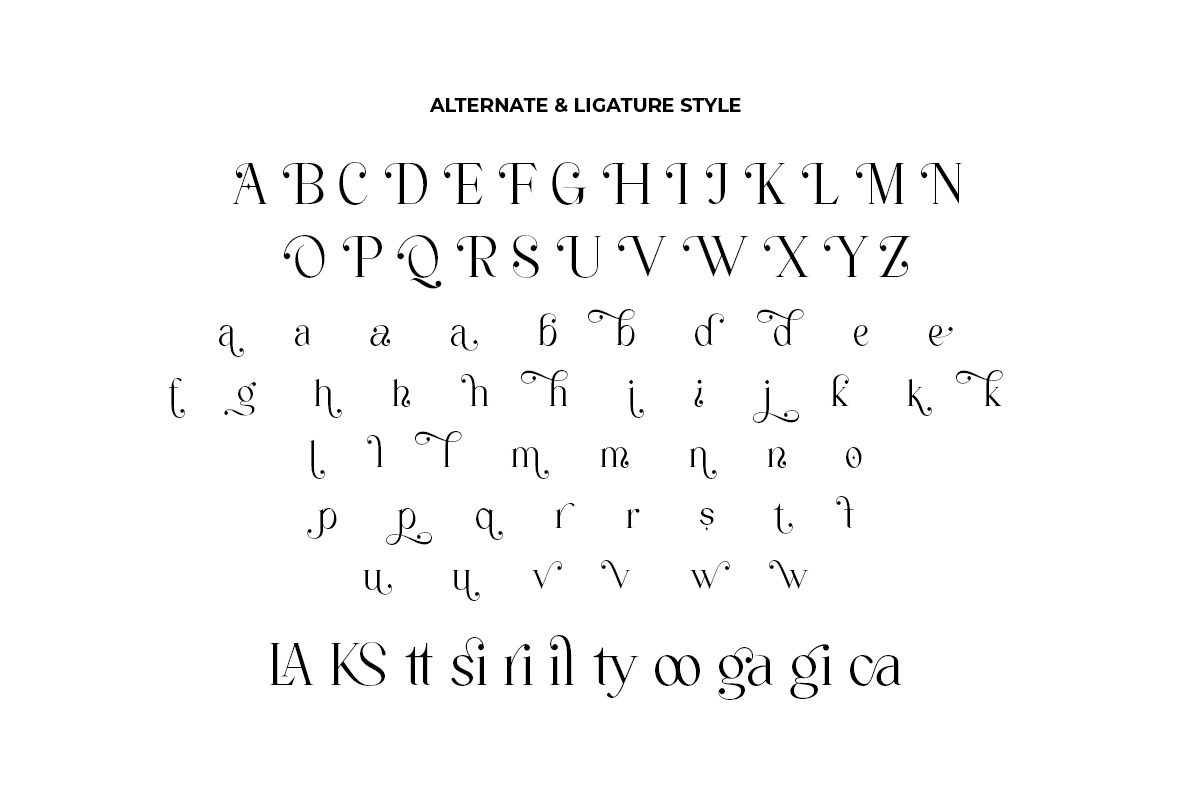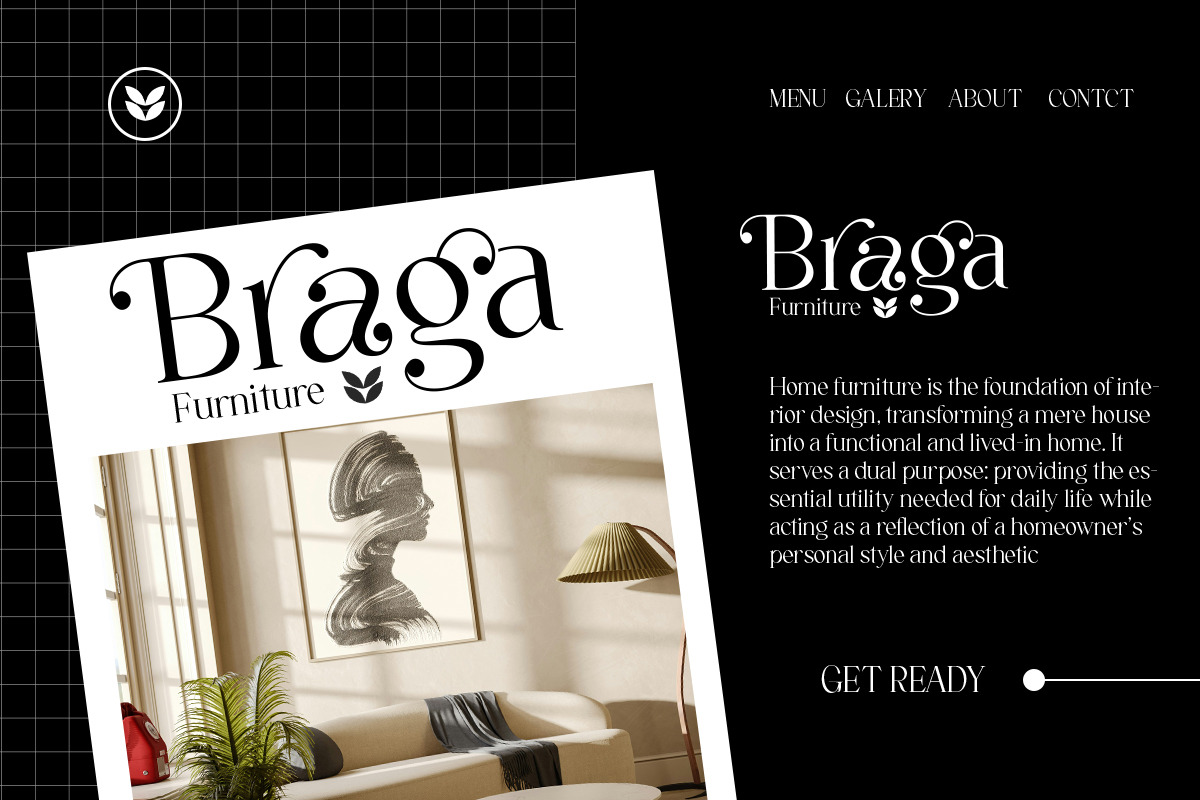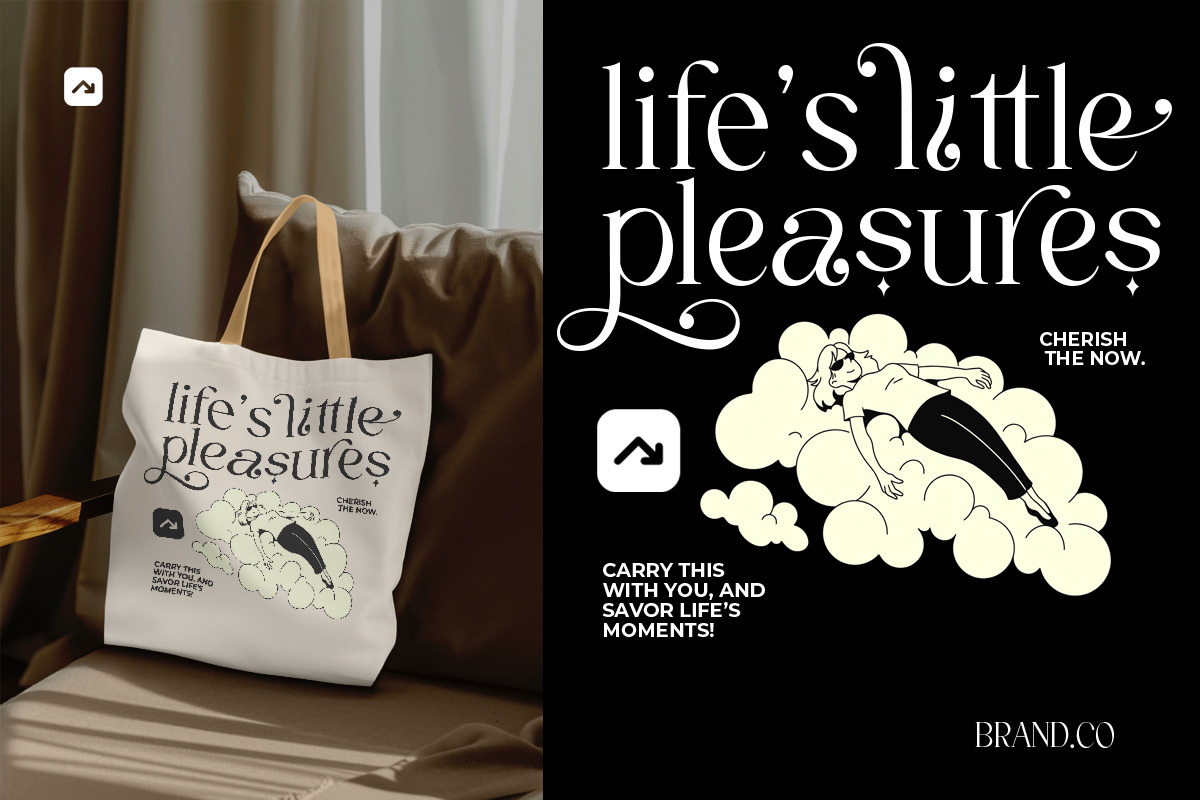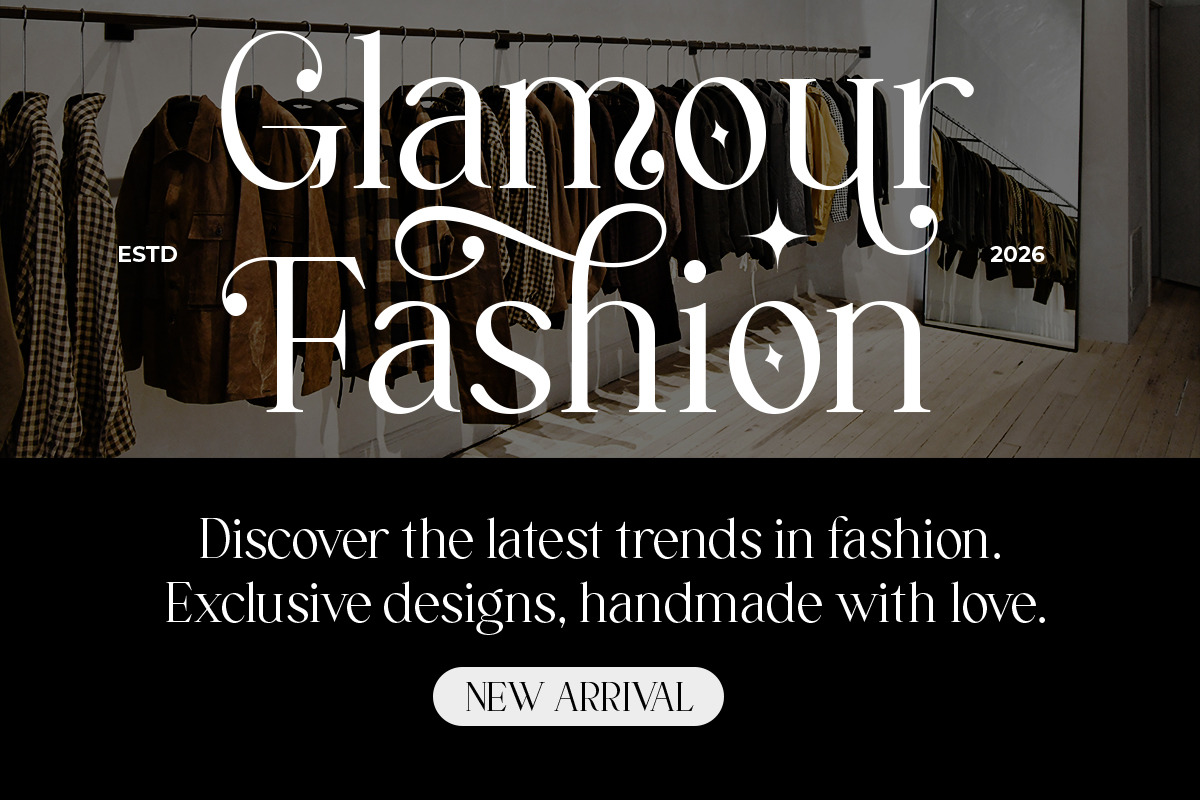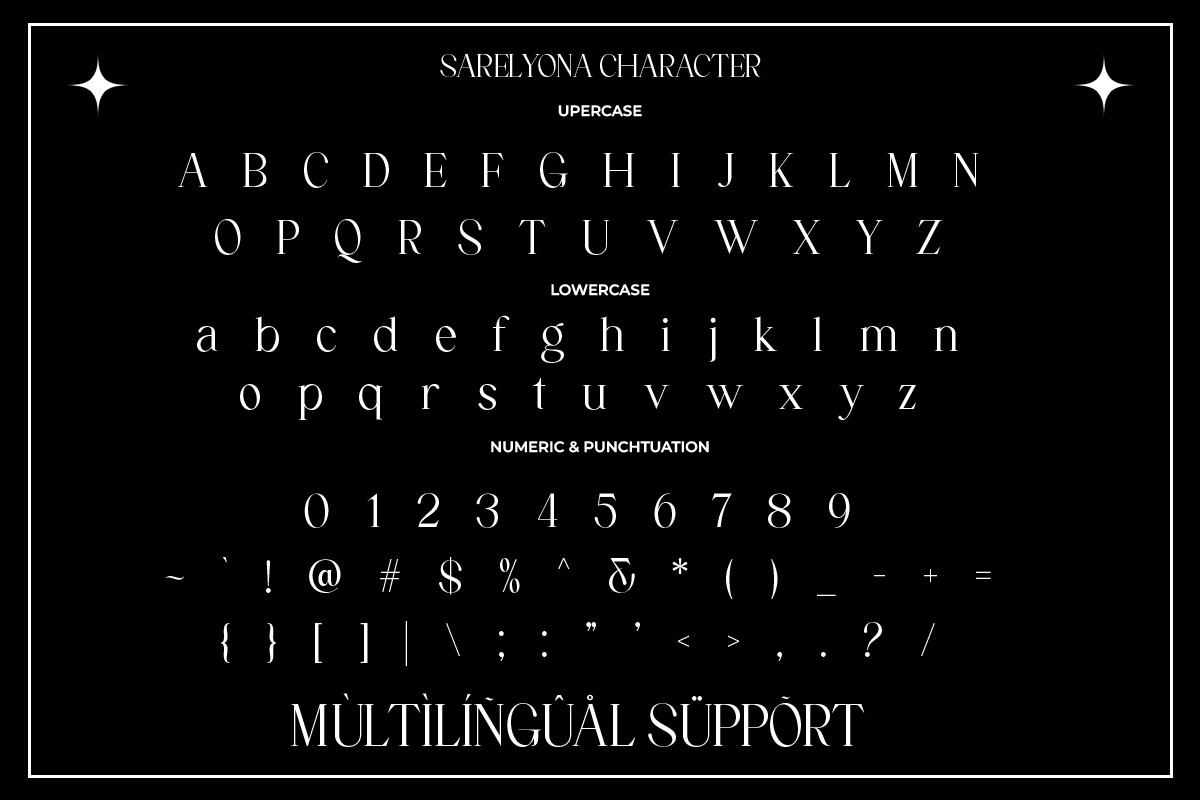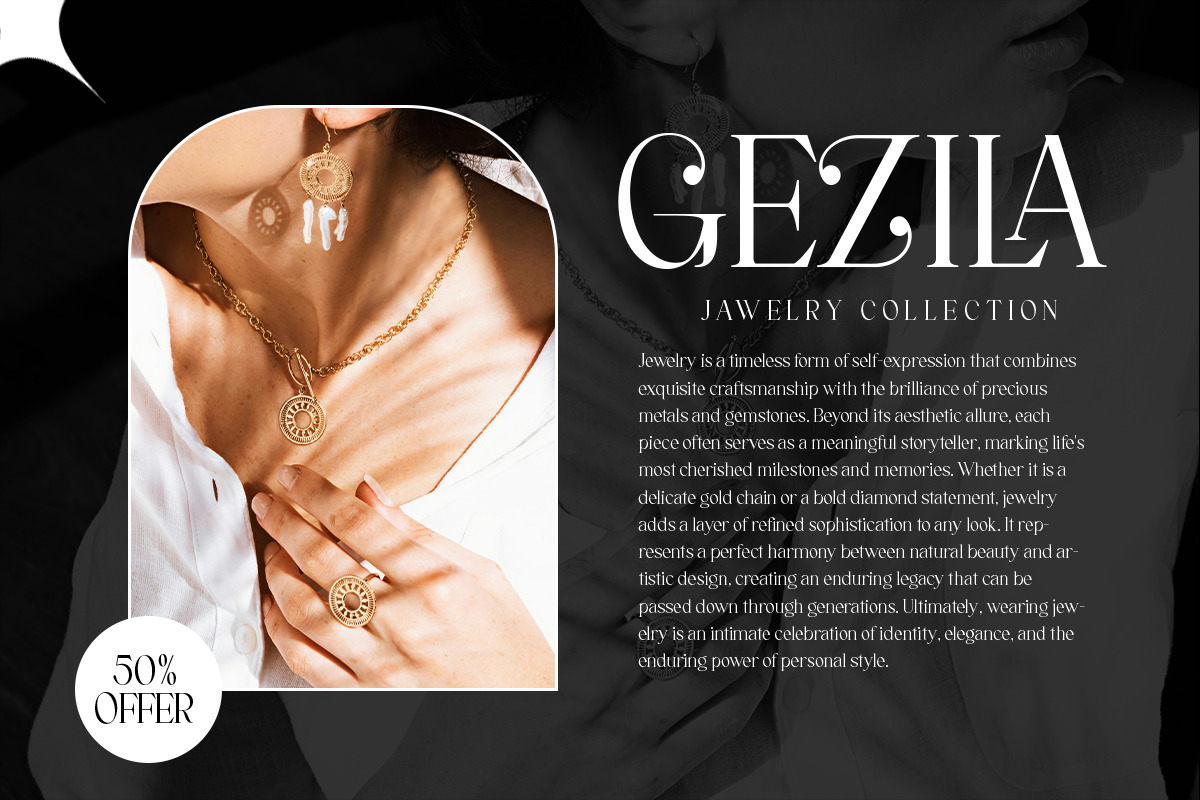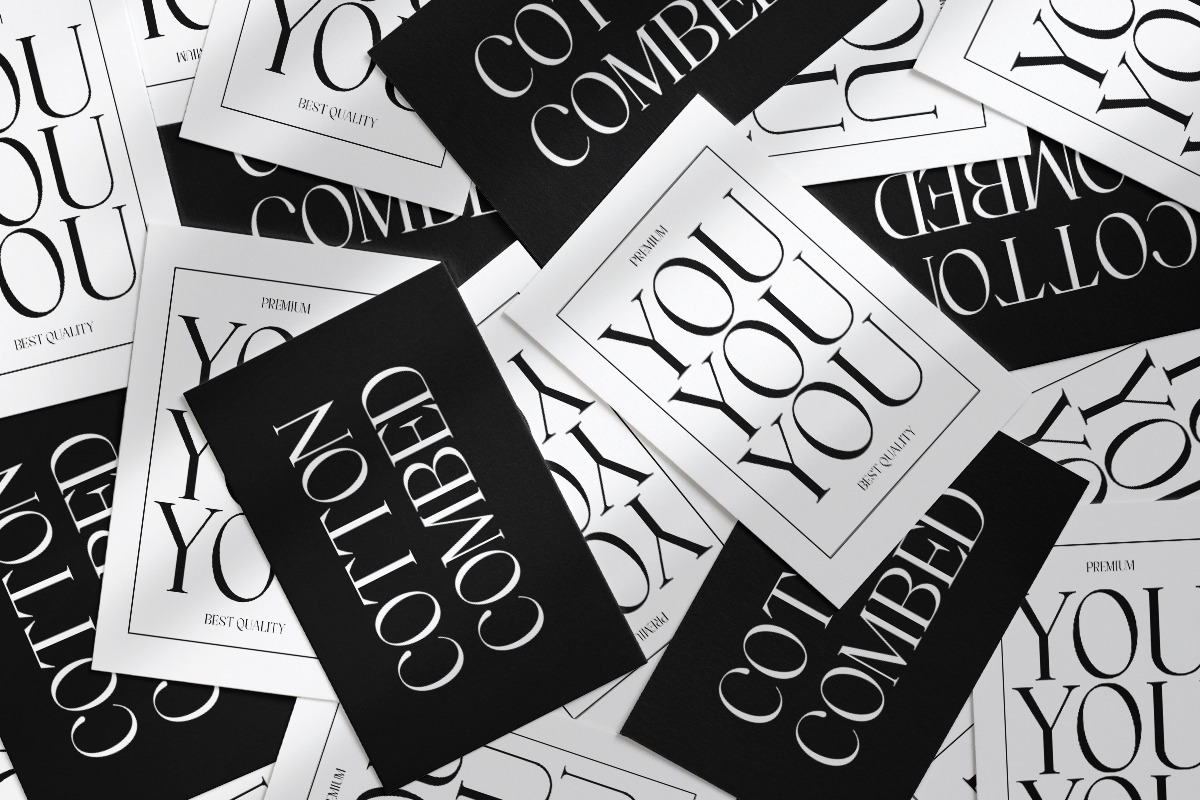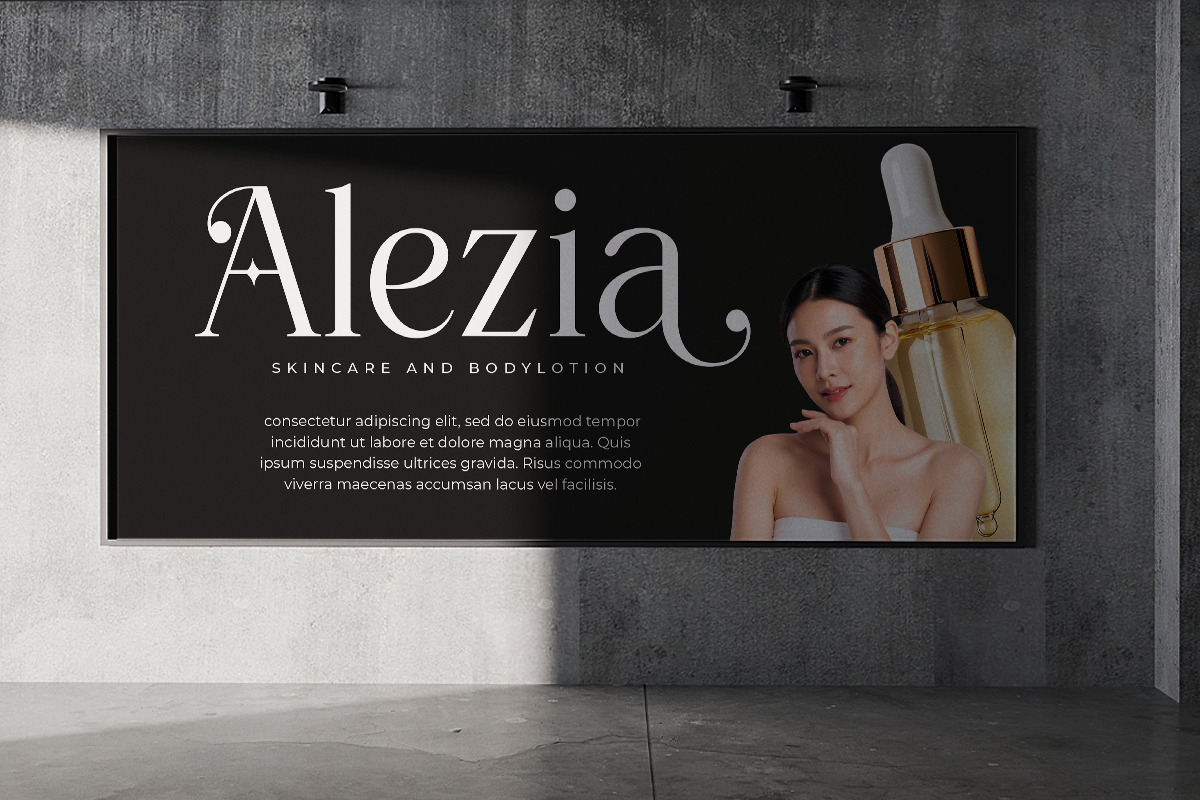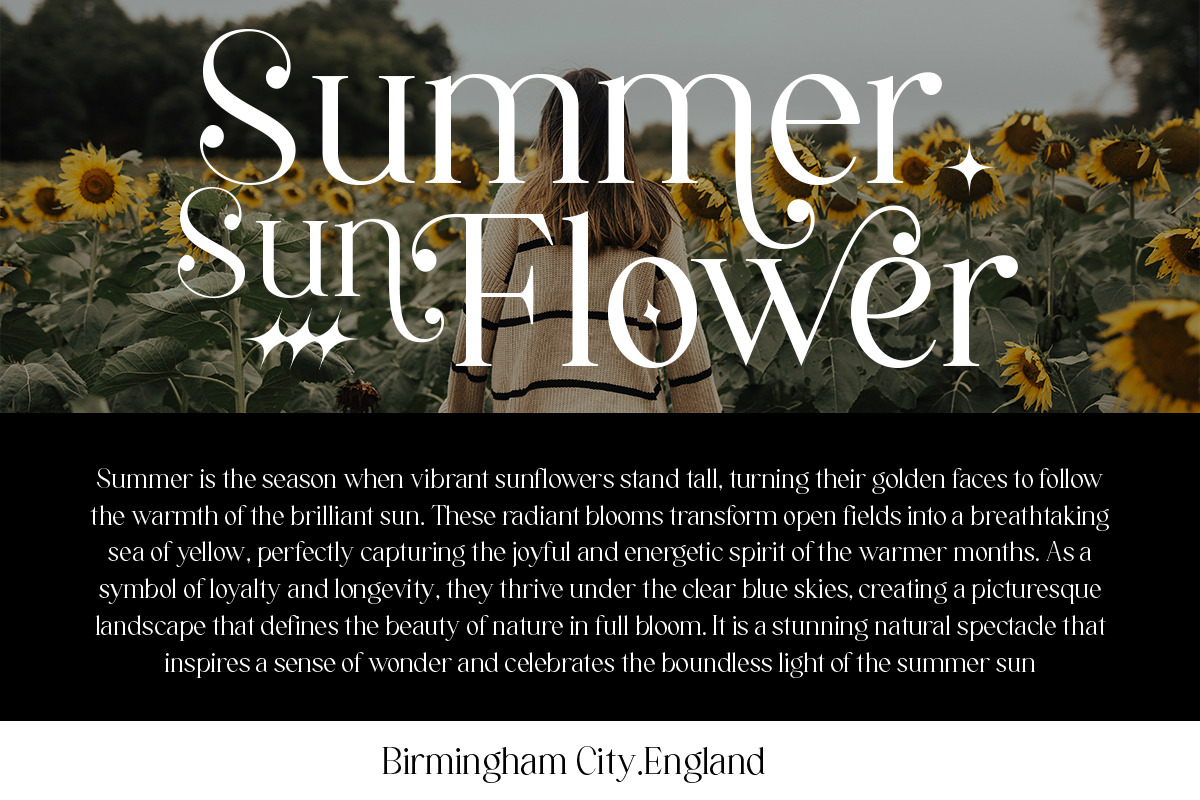
Sareyona Collection
Sareyona Collection is a modern serif font with an elegant and artistic touch. It blends classic letterforms with graceful, decorative swashes, creating a luxurious, feminine, and refined impression.
With its smooth curves and balanced thick-to-thin contrast, this font stands out while remaining beautifully readable. Perfect for branding, logos, wedding invitations, editorials, fashion projects, and premium designs that aim to convey a sophisticated and timeless feel.